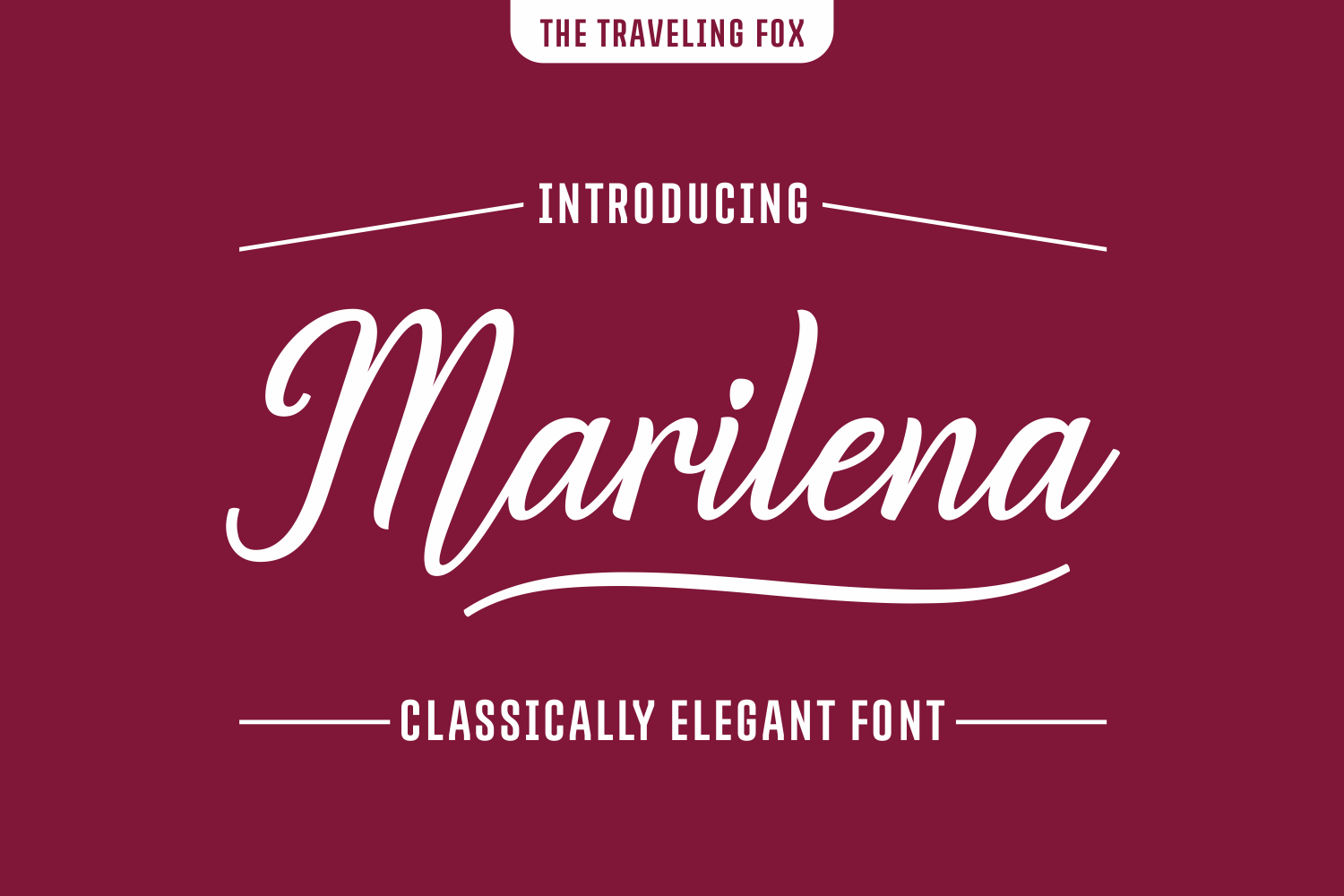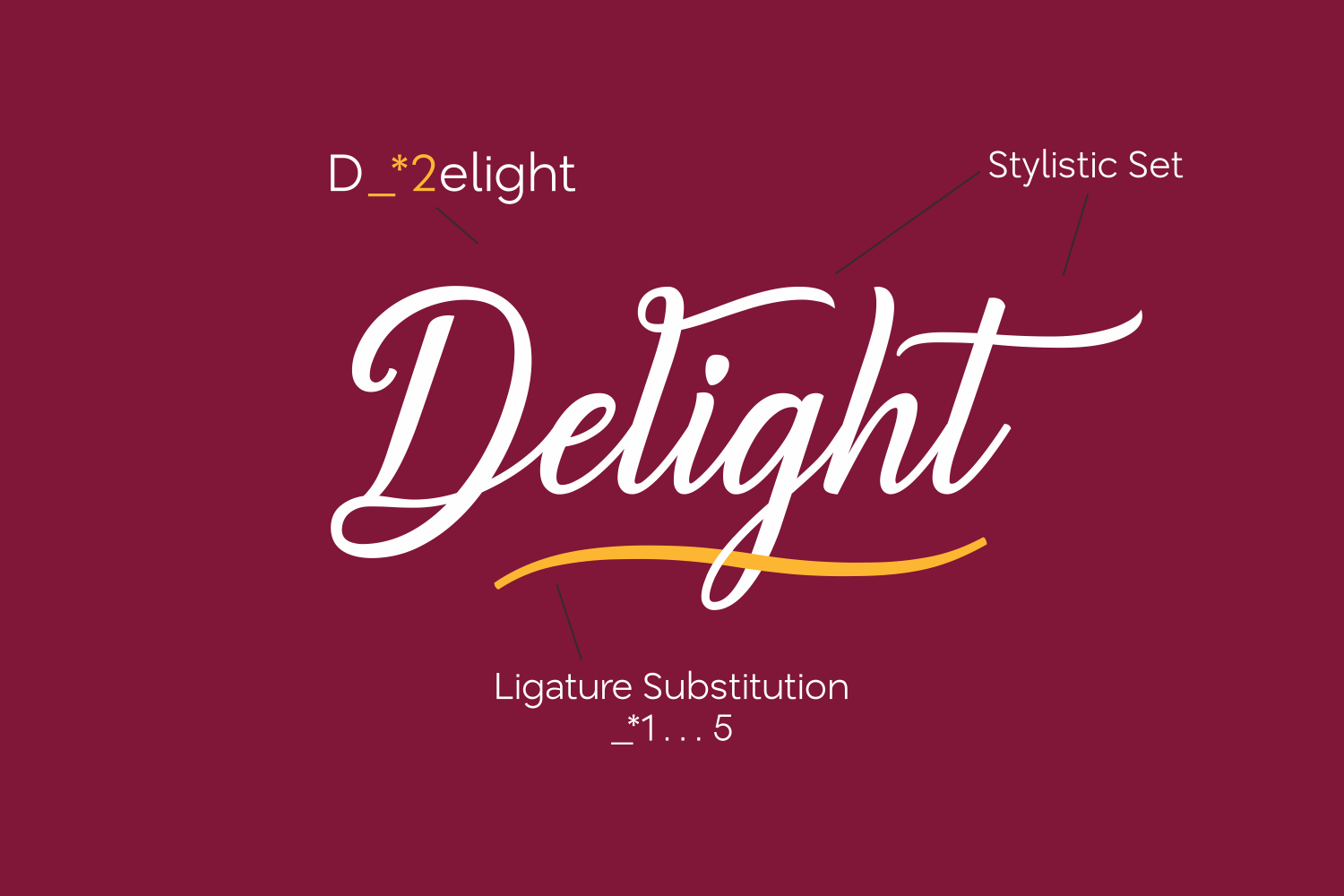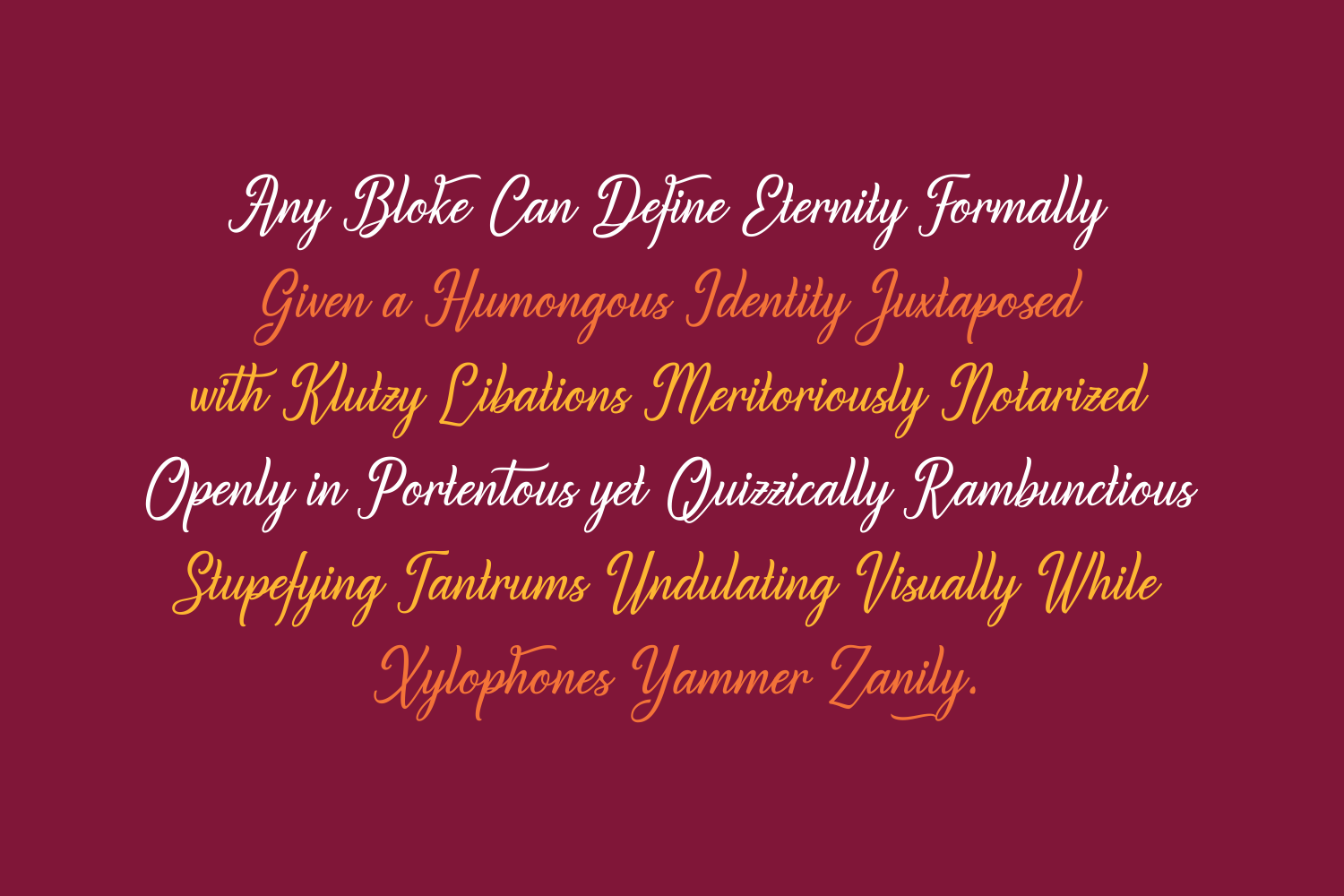
Marilena Font
About Marilena Font
Marilena is a smooth, elegant font. The soft letters are very pleasant to read, making this a very legible font.
It features long start and ending swashes that don’t need any special encoding, you can simply type _*1 and the swashes will get added.